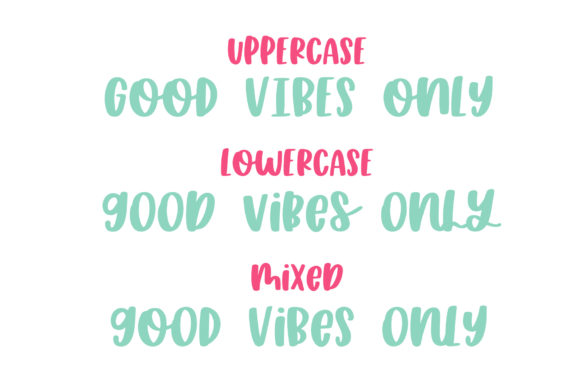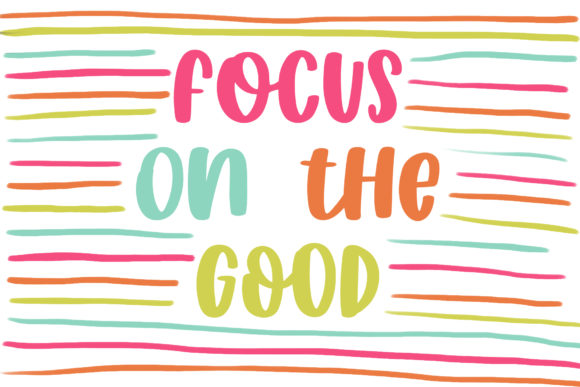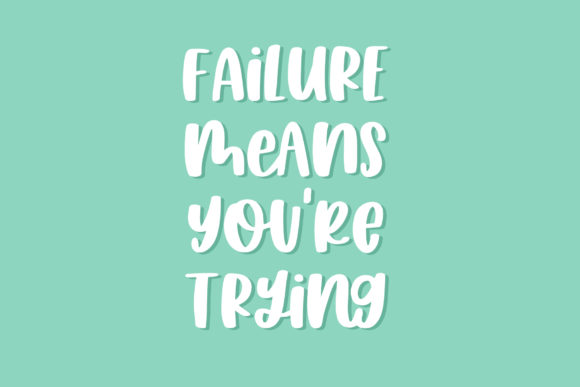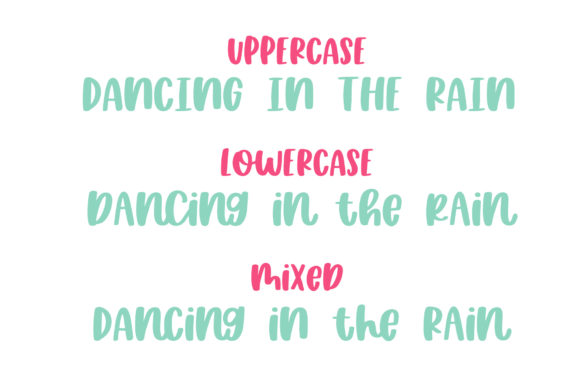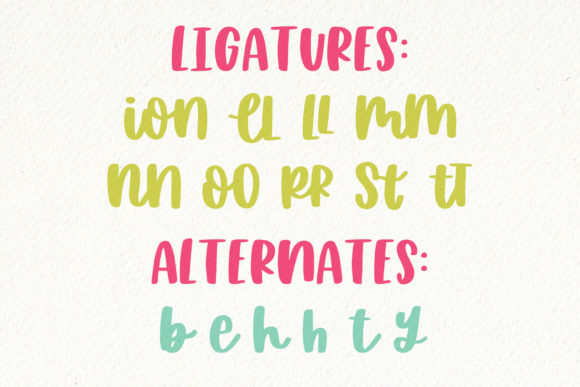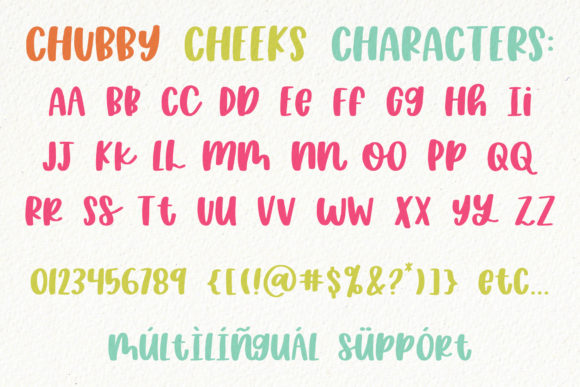
Get Ready to Fall in Love with the Chubby Cheeks Font
You know that moment when you’re brainstorming a new project, and suddenly, a spark of creativity hits you? Maybe it’s a fresh idea for a social media post, or a new logo design that perfectly captures the essence of your brand. Whatever it is, it’s a magical feeling that can get you pumped up and ready to create.
As a designer, you’re constantly on the lookout for the perfect font to bring your vision to life. That’s where the Chubby Cheeks Font comes in – a fun, hand-lettered handwritten font that’s sure to add a playful touch to your designs. With its thick lines, it’s perfect for cutting with vinyl, paper, or other materials, making it a valuable addition to your design toolkit.
Chubby Cheeks Font Key Features
- Font Family: Chubby Cheeks Font is a unique, hand-drawn font family designed for creative projects.
- Font Size: The font family includes 6 font styles with varying weights and widths, ranging from 300 to 900.
- Unique Characteristics: Chubby Cheeks Font features rounded edges, playful curves, and a mix of bold and delicate lines, perfect for adding a touch of whimsy to designs.
- Font Pairing: This font family is ideal for pairing with clean sans-serif fonts to create a visually appealing contrast.
Chubby Cheeks Font Review
At first glance, Chubby Cheeks Font is a playful and endearing font that’s sure to grab attention. ✨ The rounded edges and soft curves give it a childlike charm, making it perfect for projects that need a whimsical touch. I particularly love how it works well in headings and titles, adding a sense of fun and playfulness to the overall design.
One of the standout features of Chubby Cheeks is its versatility. ✨ It’s available in a range of weights, from light to bold, allowing designers to experiment with different looks and feels. Additionally, the font is highly customizable, making it easy to adjust the spacing and kerning to suit individual design needs.
- ⚠️ Limited legibility: While Chubby Cheeks is perfect for headings and titles, its rounded edges can make it difficult to read at smaller font sizes.
- ⚠️ Limited support for non-Latin scripts: Unfortunately, Chubby Cheeks is not optimized for non-Latin scripts, making it less suitable for multilingual projects.
Overall, I think Chubby Cheeks Font is a great addition to any designer’s toolkit. While it has its limitations, its playful charm and versatility make it a valuable asset for designers looking to add a touch of whimsy to their projects.
Chubby Cheeks Font Practical Application Guide
The Chubby Cheeks font is perfect for:
- Children’s book illustrations
- Food and beverage branding
- Playful advertising campaigns
- Whimsical stationery designs
Getting the Most Out of Chubby Cheeks Font
Here are some tips to get the most out of Chubby Cheeks Font:
- Pair it with bold colors to create a playful contrast.
- Use Chubby Cheeks Font for headings and highlighted menu items to create a sense of whimsy.
- Pair the font with watercolor illustrations and soft pastel colors to create a dreamy atmosphere.
- For a cohesive look, use a bold color scheme and simple shapes to balance out the playful font.
- Use Chubby Cheeks Font for the main text and headings to create a sense of personal touch.
- Combine the font with hand-drawn illustrations of baby animals or cute motifs to add a playful touch.
- Balance out the playful font with simple lines and shapes to avoid overwhelming the design.
- Use Chubby Cheeks Font as the main text for the prints, emphasizing the unique personality of each design.
Project 2: Hand-Drawn Baby Shower Invitations
The Hand-Drawn Baby Shower Invitations project is a sweet way to celebrate the upcoming arrival of a baby. Chubby Cheeks Font adds a charming, handwritten feel to the design.
Project 3: Quirky Art Print Collection
The Quirky Art Print Collection features a set of prints that showcase the unique personality of the Chubby Cheeks Font. This project is perfect for a modern art lover or a fan of quirky design.